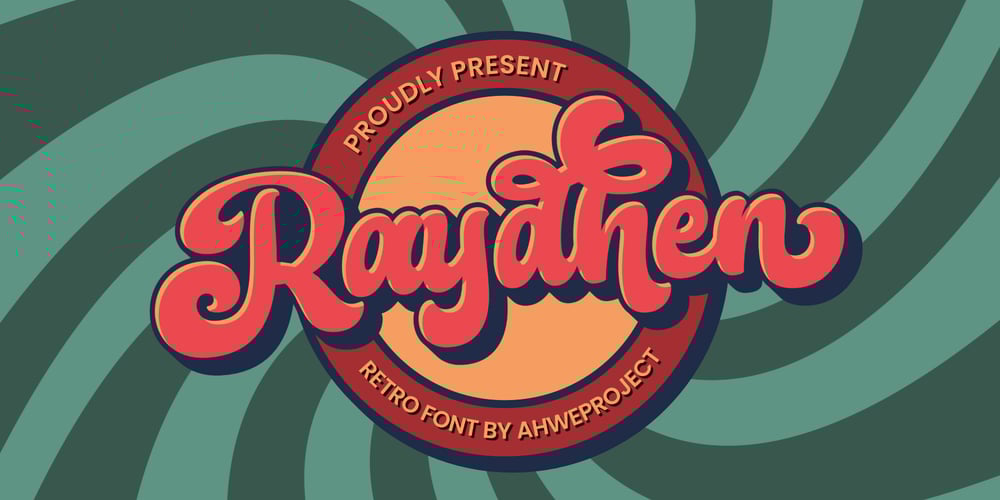
Raydhen
Raydhen font
Raydhen Font Family was designed by Dida Ahluddin and published by ahweproject. Raydhen contains 2 styles and family package options. Raydhen is a fun, retro-style script display font that is ready to take your designs to the next level. Add it to your vintage-inspired posters, stickers, apparel, or social media posts and you will definitely impress your audience.This font is PUA encoded, which means you can access all of the glyphs and swashes with ease!